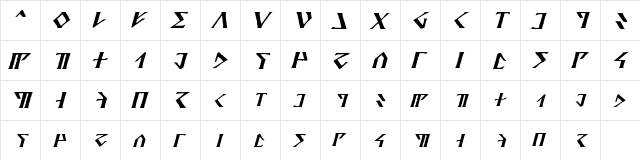
Davek Italic
Design Context for Davek Typeface
Davek is a composed and adaptable typeface that performs quietly and consistently across a wide range of design contexts. Its italic angle brings a sense of urgency and motion to the letterforms.
Pro Tip: Use Davek for emphasis, pull quotes, and subheadings where its slanted energy can add rhythm to the layout.